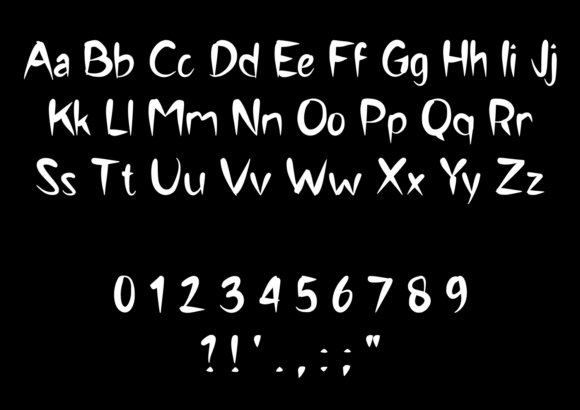
Introduction to Make Me Frostie Font
Have you ever stumbled upon the perfect font for your creative project, only to realize it’s the perfect addition to your entire winter-themed aesthetic? That’s exactly what happened when I discovered the Make Me Frostie Font. Its frosty display style had me hooked from the start, and I knew I had to share it with fellow designers and crafty enthusiasts.
As a valuable design resource, Make Me Frostie Font is perfect for anyone looking to add a touch of icy cool to their designs. With its free download option, you can get started right away on your next project. From Christmas cards to posters, apparel, and stickers, this high-quality font is sure to make your creations stand out. And with its transparent background, you can easily customize it to fit your design needs.
Whether you’re a seasoned designer or just starting out, Make Me Frostie Font is an essential addition to your design toolkit. Its unique style and versatility make it a must-have for any creative project, and its high-quality design ensures that your finished product will be nothing short of amazing.
Key Features of Make Me Frostie Font
- Unique Frosty Design: The Make Me Frostie Font features a distinctive, frosty design that adds a touch of winter wonder to any creative project.
- Perfect for Winter-Themed Projects: The frosty design of the font makes it an ideal choice for winter-themed projects, such as holiday cards, gift tags, and more.
Honest Review: Make Me Frostie Font
I recently had the chance to work with the Make Me Frostie Font, and I must say it was a delightful experience. This font is perfect for any creative project that requires a playful and whimsical touch.
- What works well: ✨ The high-quality design of the font ensures that it will look great on any screen or print medium.
However, there are a few limitations to keep in mind. The font may not be suitable for projects that require a more serious or professional tone, as it has a somewhat playful and childish feel.
- Limitations: ⚠️ The font may not be as effective for projects that require a high level of sophistication or elegance.
Overall, I was very impressed with the Make Me Frostie Font and would highly recommend it to designers working on creative projects that require a fun and playful touch. With its versatility, high-quality design, and free download availability, it’s a valuable resource that’s sure to become a favorite in your design arsenal.
Make Me Frostie Font
Getting the Most Out of Make Me Frostie Font
Here are some tips to help you get the most out of the Make Me Frostie Font:
- Experiment with different font sizes and colors to create a unique look.
- Use the font with a transparent background for a more creative look.